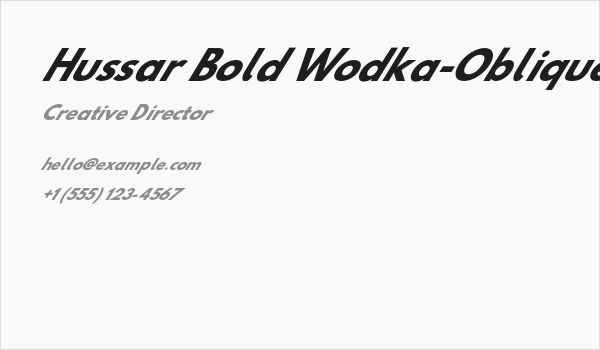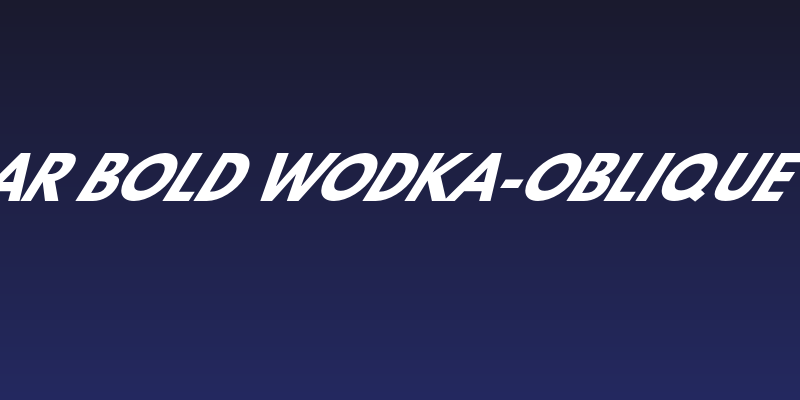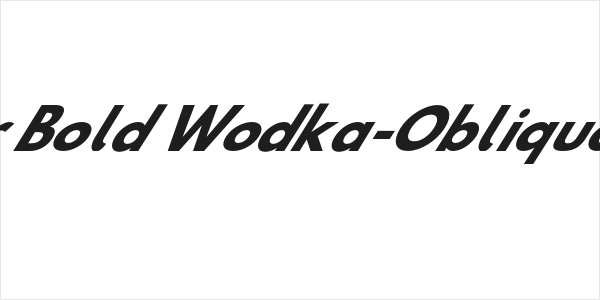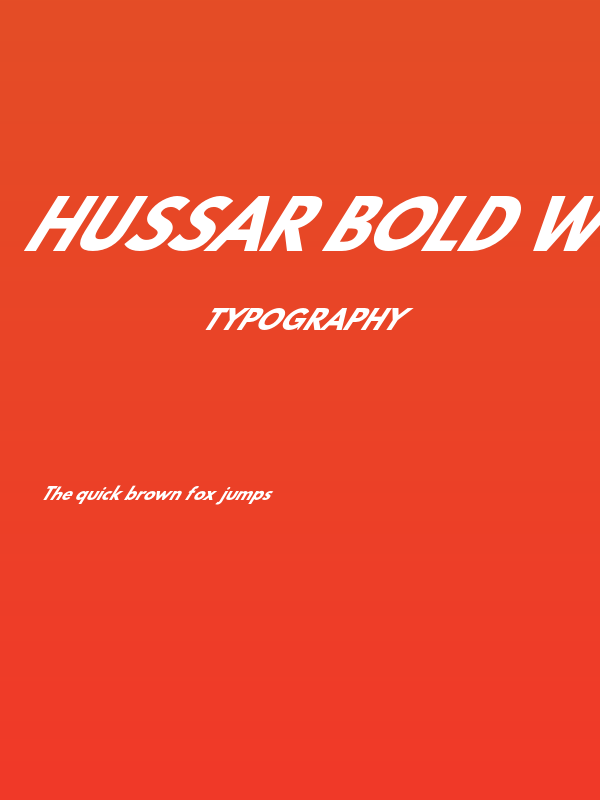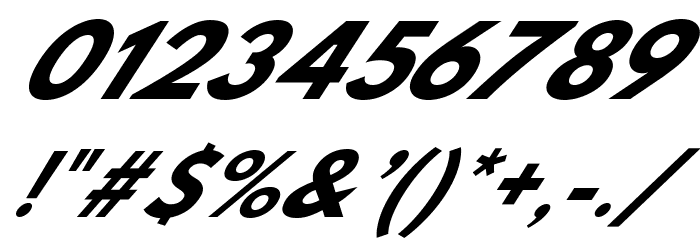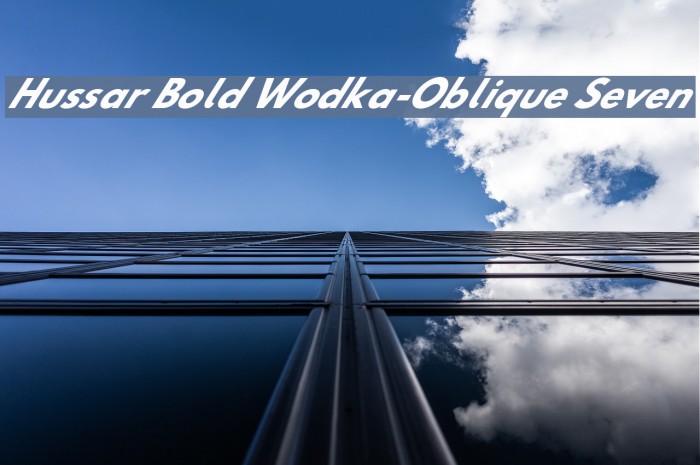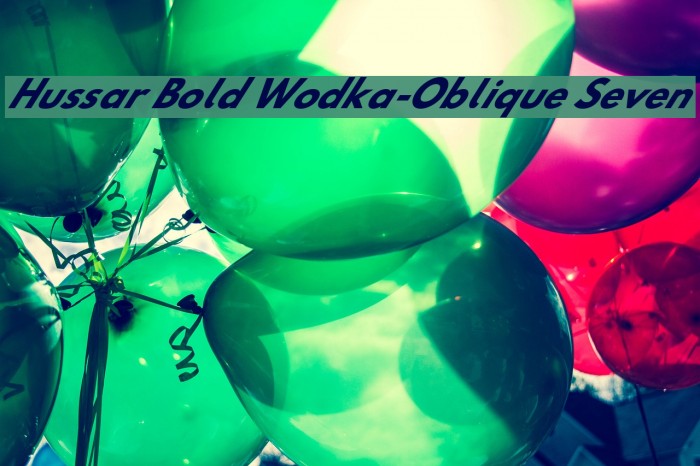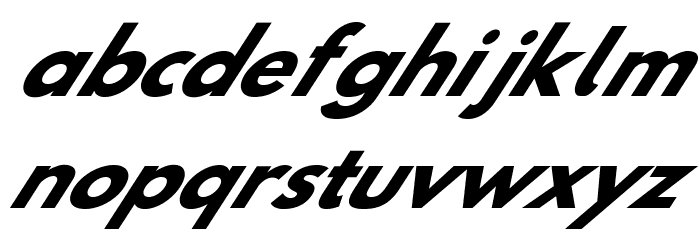
Hussar Bold Wodka-Oblique Seven Font
Hussar Bold Wodka-Oblique Seven Description
This font features a bold and oblique style, characterized by its strong and dynamic appearance. The letters are slanted, adding a sense of motion and energy. The strokes are thick and consistent, providing a robust and impactful look. The uppercase and lowercase letters maintain a uniform style, with smooth curves and sharp angles. The numbers and special characters follow the same bold and slanted design, ensuring a cohesive appearance across all glyphs. This font is ideal for making a statement, with its eye-catching and assertive style.
| Proposed Projects | Ideal for headlines, posters, branding, and any project requiring a strong visual impact. |